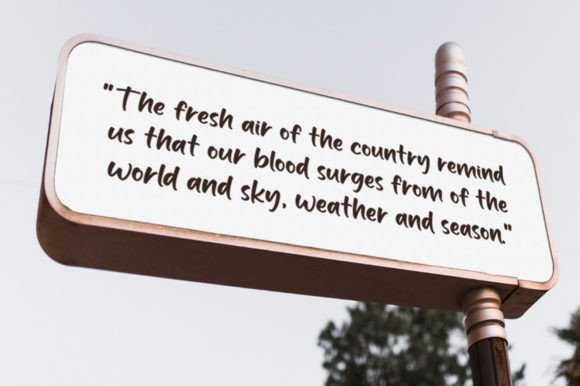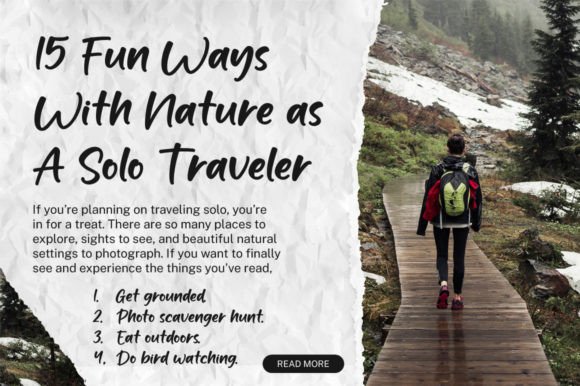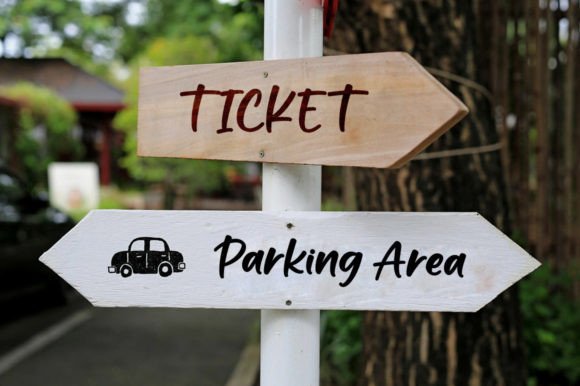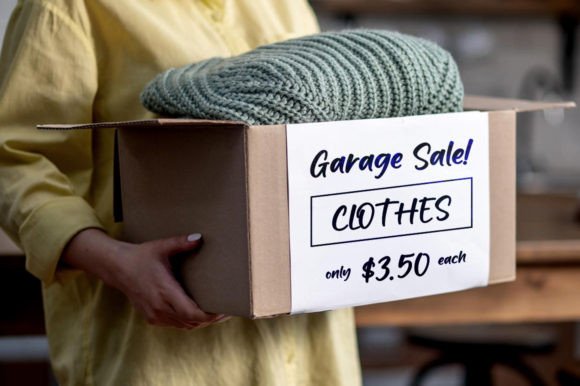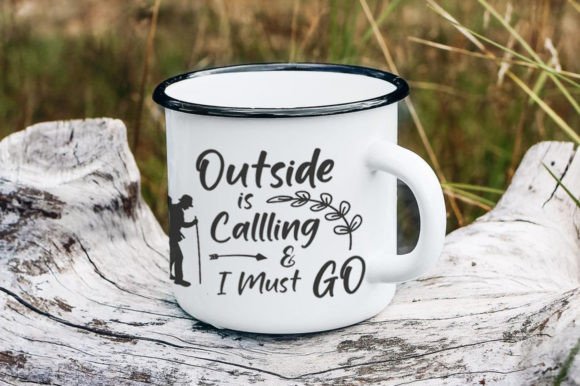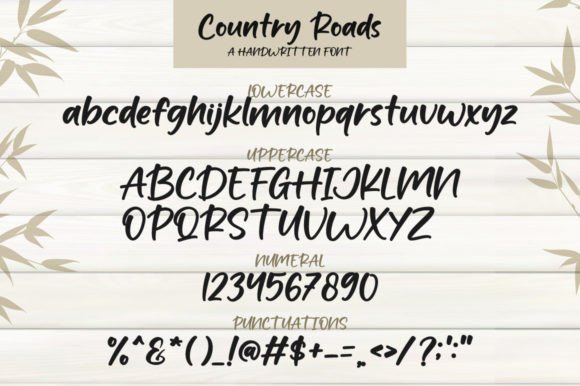
Discovering the Magic of Handwritten Typography
Have you ever stumbled upon a handwritten note that made you feel like you’ve discovered a treasure? The way the words dance across the page, the imperfections that add character, and the emotional connection that comes with it – that’s what handwritten typography is all about. And for designers, finding the perfect font can be a game-changer.
That’s where the Country Roads Font comes in – a delicate, elegant, and flowing handwritten font that’s sure to capture the essence of your design. With its beautiful and well-balanced characters, it’s the perfect addition to any project, whether you’re working on a branding campaign, a wedding invitation, or a personal blog.
What sets Country Roads Font apart is its versatility and ability to adapt to a wide range of designs. Whether you’re looking for a classic, timeless feel or a more modern, whimsical look, this font is sure to deliver. With its unique charm and character, Country Roads Font is a valuable addition to any designer’s toolkit.
Country Roads Font Key Features
- Font Family: Country Roads is a custom, handwritten font designed to evoke the spirit of West Virginia’s natural beauty.
- Unique Characteristics: Country Roads features a unique blend of modern and traditional elements, with distinctive flourishes and connections between letters.
Country Roads Font Review
As a designer, I’ve had the chance to work with the Country Roads Font, and I must say it’s a unique and charming font.
- ✨ The font’s hand-drawn feel gives it a warm and inviting touch, perfect for creating a welcoming atmosphere in branding and advertising.
- ✨ The font’s versatility makes it suitable for a wide range of applications, from headings to body text, and even for use in digital interfaces.
- ✨ The font’s bold and condensed forms make it ideal for creating eye-catching titles and headings.
However, there are some limitations:
- ⚠️ The font’s cursive feel can make it difficult to read in certain contexts, especially at smaller font sizes.
- ⚠️ The font’s lack of italic and bold-italic styles may limit its use in certain situations.
- ⚠️ The font’s high x-height can make it appear cluttered or overwhelming in dense text.
Overall, I think the Country Roads Font is a solid choice for designers looking for a unique and charming font. While it has some limitations, its strengths make it a great option for creating eye-catching and engaging designs.
Getting the Most Out of Country Roads Font
To get the most out of the Country Roads font, use it in conjunction with distressed or vintage elements to create a nostalgic look. Experiment with different font sizes and colors to achieve the desired balance.
The Country Roads font is ideal for:
- Vintage-themed designs
- Rustic or country-inspired designs
- Music-related designs (e.g., song lyrics, music festivals)
Alternatives to Country Roads Font
Ostrich Sans is a modern sans-serif font with a friendly, approachable feel. It’s perfect for use in headings and titles where a clean, legible font is required. Ostrich Sans is more geometric and clean compared to Country Roads Font, which has a more rustic feel.
Lato is a sans-serif font with a strong, modern feel. It’s ideal for use in body text and headings where a clear, readable font is required. Lato is more neutral and versatile compared to Country Roads Font, which has a distinct, nostalgic feel.
Merriweather is a classic serif font with a timeless, elegant feel. It’s perfect for use in body text and headings where a sophisticated, traditional font is required. Merriweather is more formal and traditional compared to Country Roads Font, which has a more casual, rustic feel.